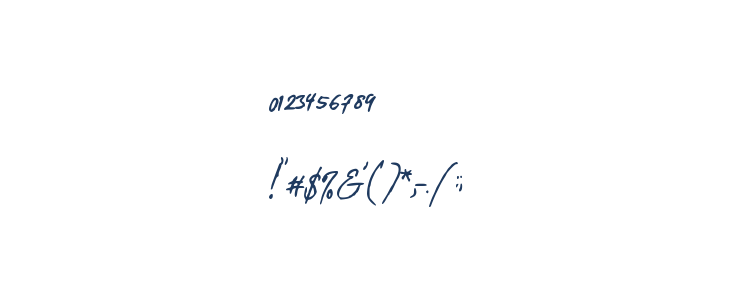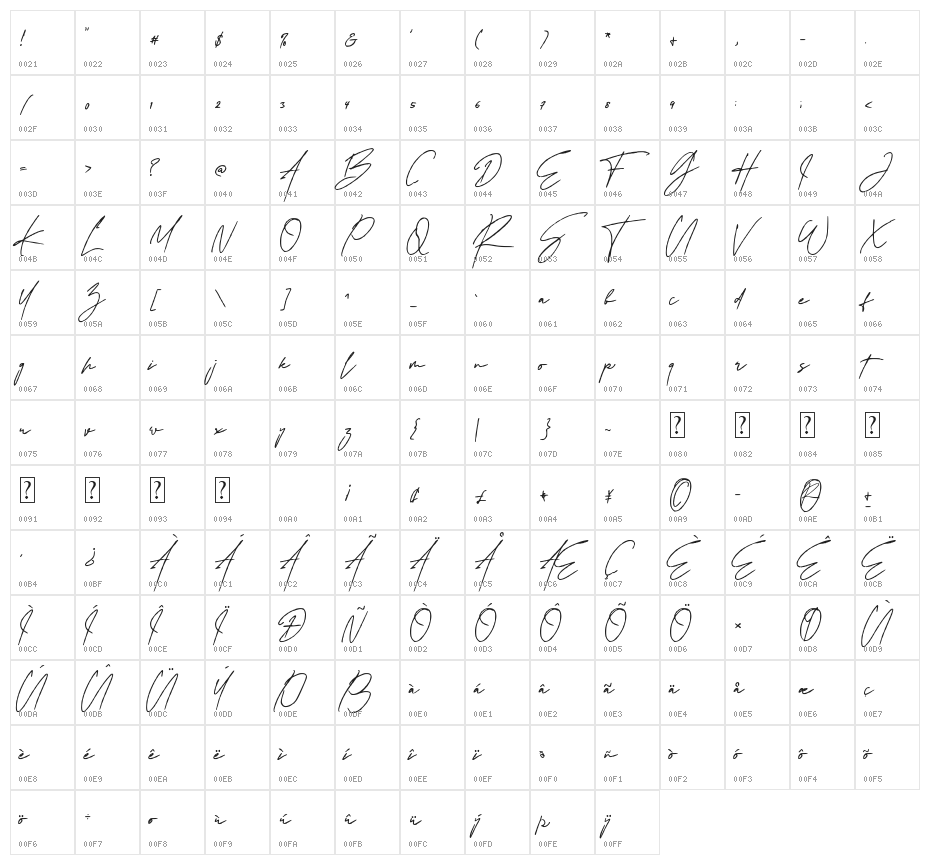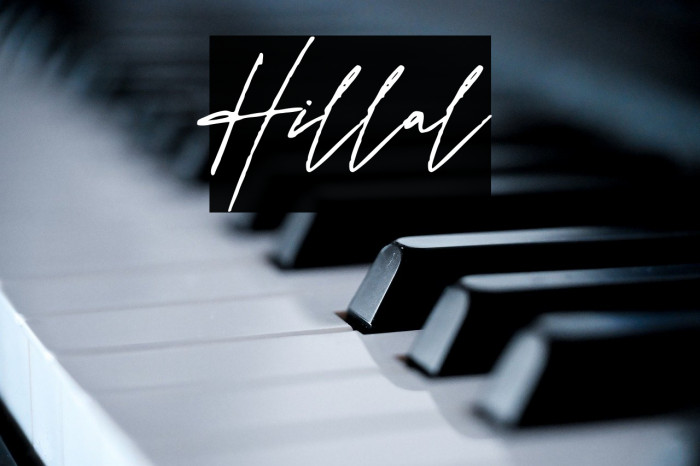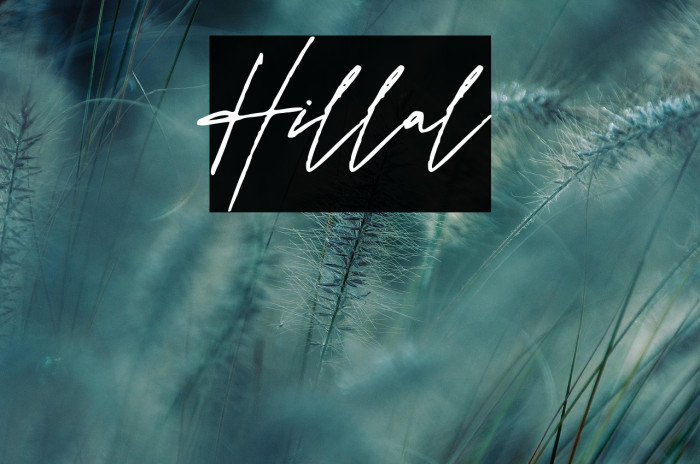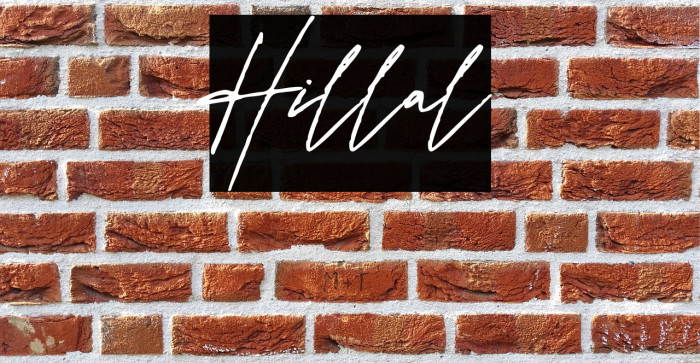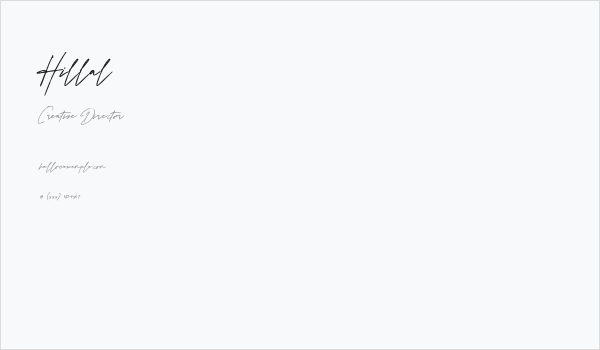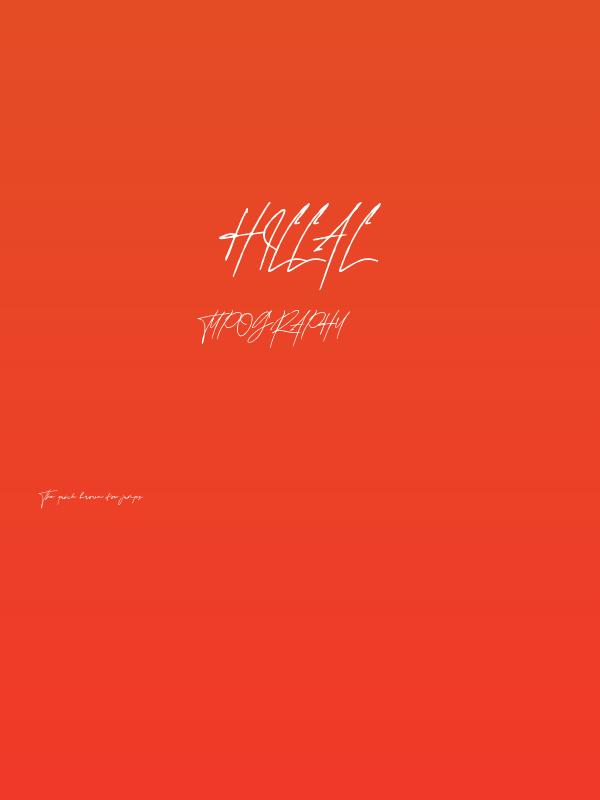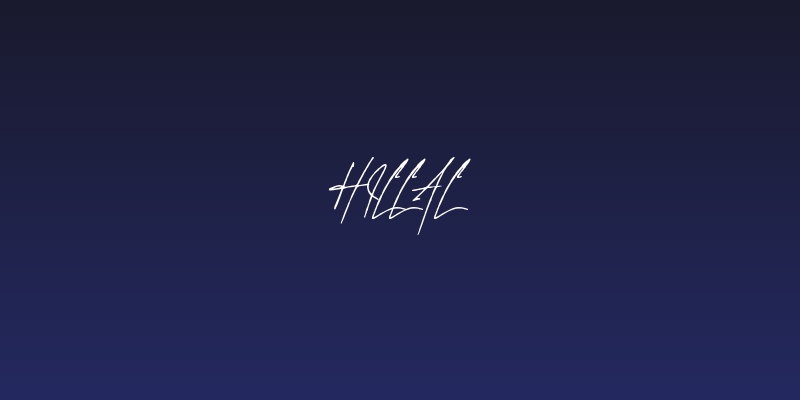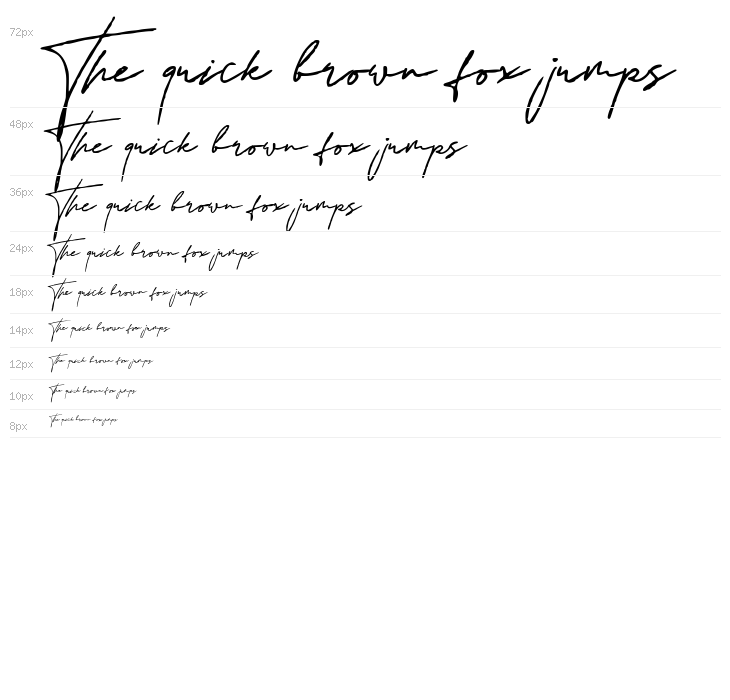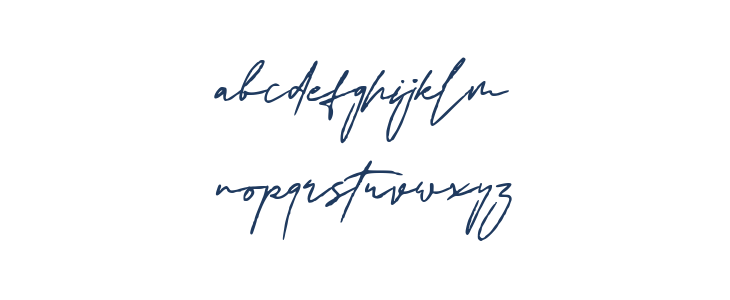
Hillal Font
Hillal Description
This font exhibits a dynamic and expressive handwritten style, characterized by its fluid and cursive strokes. The uppercase letters are bold and sweeping, with a noticeable slant that adds a sense of motion and elegance. The lowercase letters maintain a consistent flow, complementing the uppercase with their smooth, connected forms. Numbers and special characters are crafted with the same attention to detail, ensuring a cohesive look across all elements. The overall appearance is both artistic and legible, making it suitable for creative projects that require a personal touch.
| Use Case | Logos, Headlines, Artistic projects |
| Proposed Projects | Ideal for wedding invitations, personal branding, artistic posters, and greeting cards. |